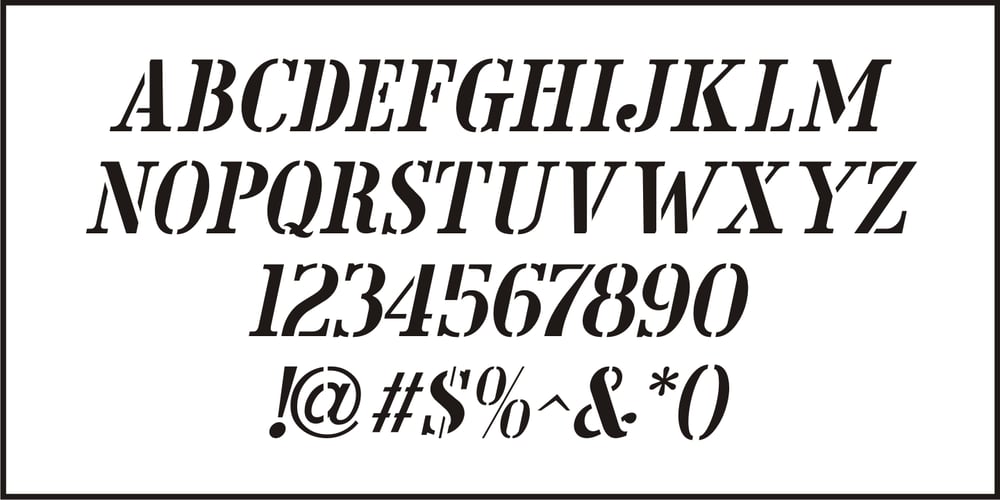
Maitre d Stencil JNL
Maitre d Stencil JNL font
Maitre d Stencil JNL Font Family was designed by Jeff Levine and published by Jeff Levine. Maitre d Stencil JNL contains 2 styles and family package options. Maître d’ Stencil JNL is based on an alphabet example found in the 1949 French lettering book “Album de Lettres Arti”, and is available in both regular and oblique versions.